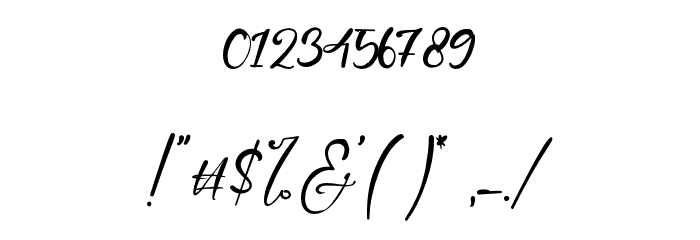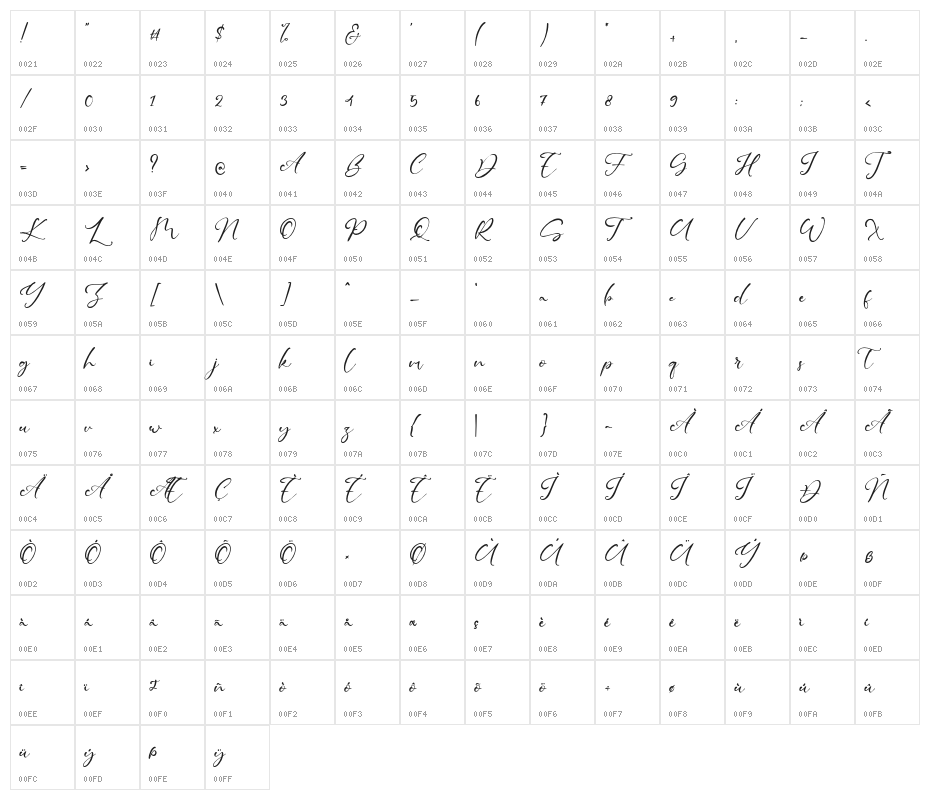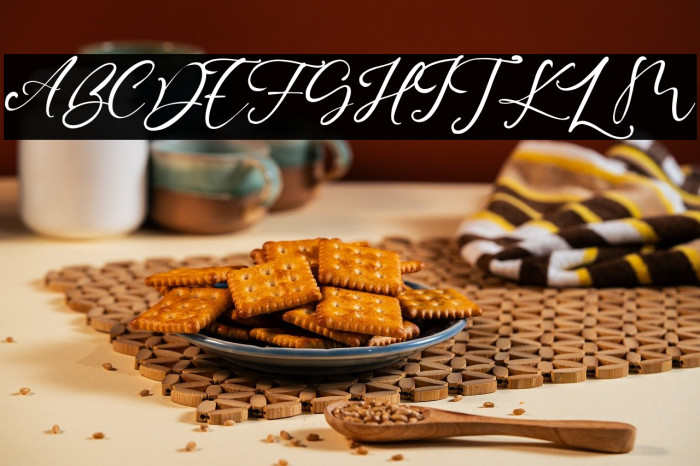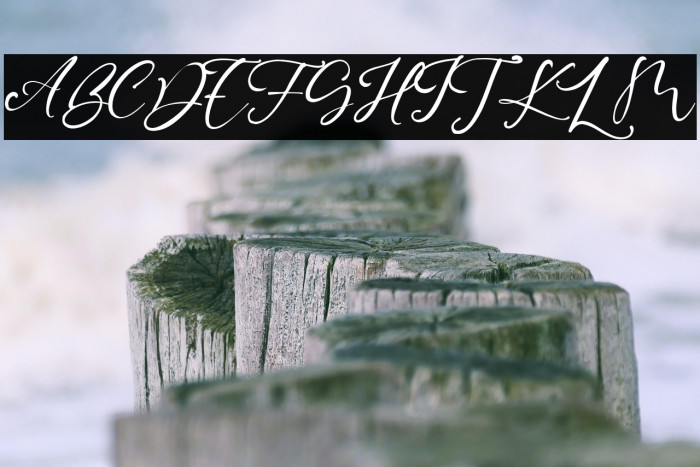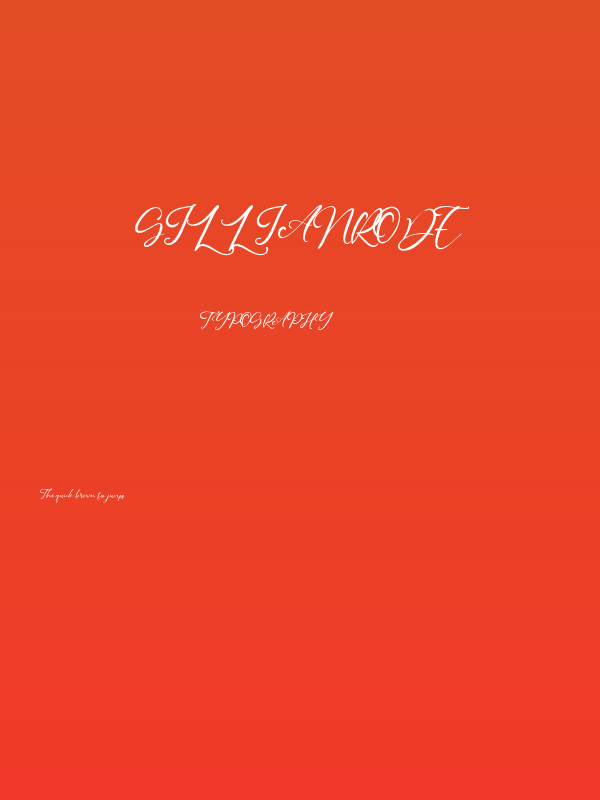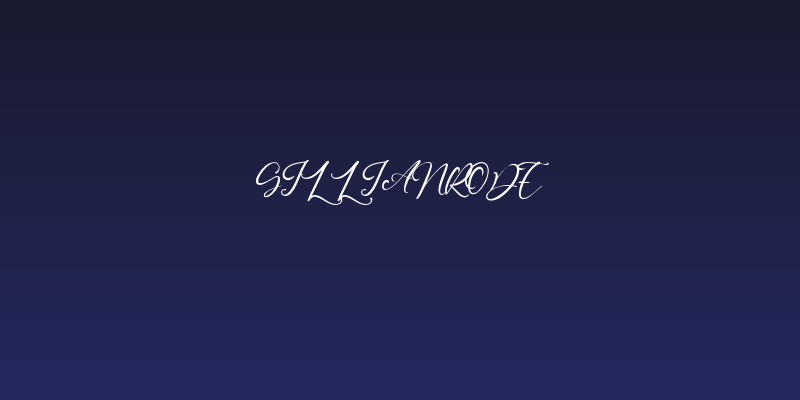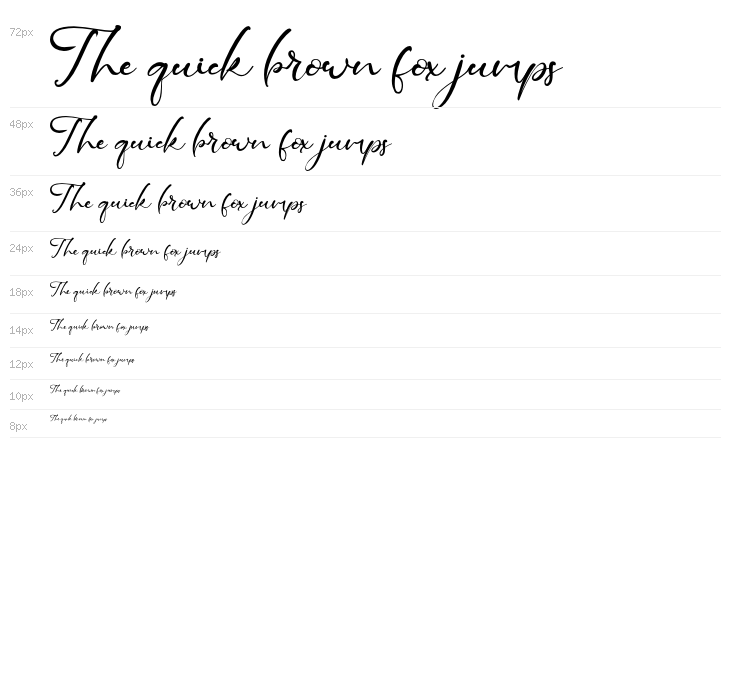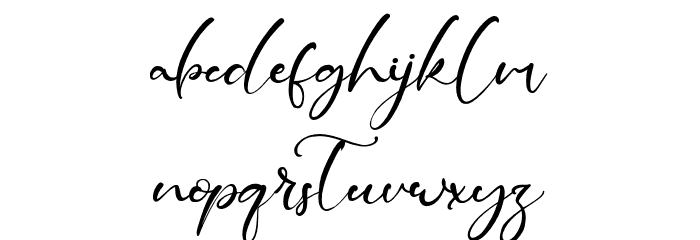
GillianRode Font
GillianRode Description
This font exudes elegance and sophistication with its flowing, cursive script style. The letters are intricately designed with smooth curves and delicate flourishes, giving it a handwritten appearance. The uppercase letters are particularly ornate, featuring elaborate loops and swashes that add a touch of grandeur. The lowercase letters maintain a consistent style, with gentle slopes and rounded forms that enhance readability. The numerals and special characters are crafted to match the overall aesthetic, ensuring a cohesive look across all text. This font is perfect for projects that require a personal, artistic touch, such as invitations, greeting cards, and branding materials.
| Overall Style | Elegant, Artistic |
| Proposed Projects | Ideal for wedding invitations, greeting cards, personal branding, and artistic projects. |